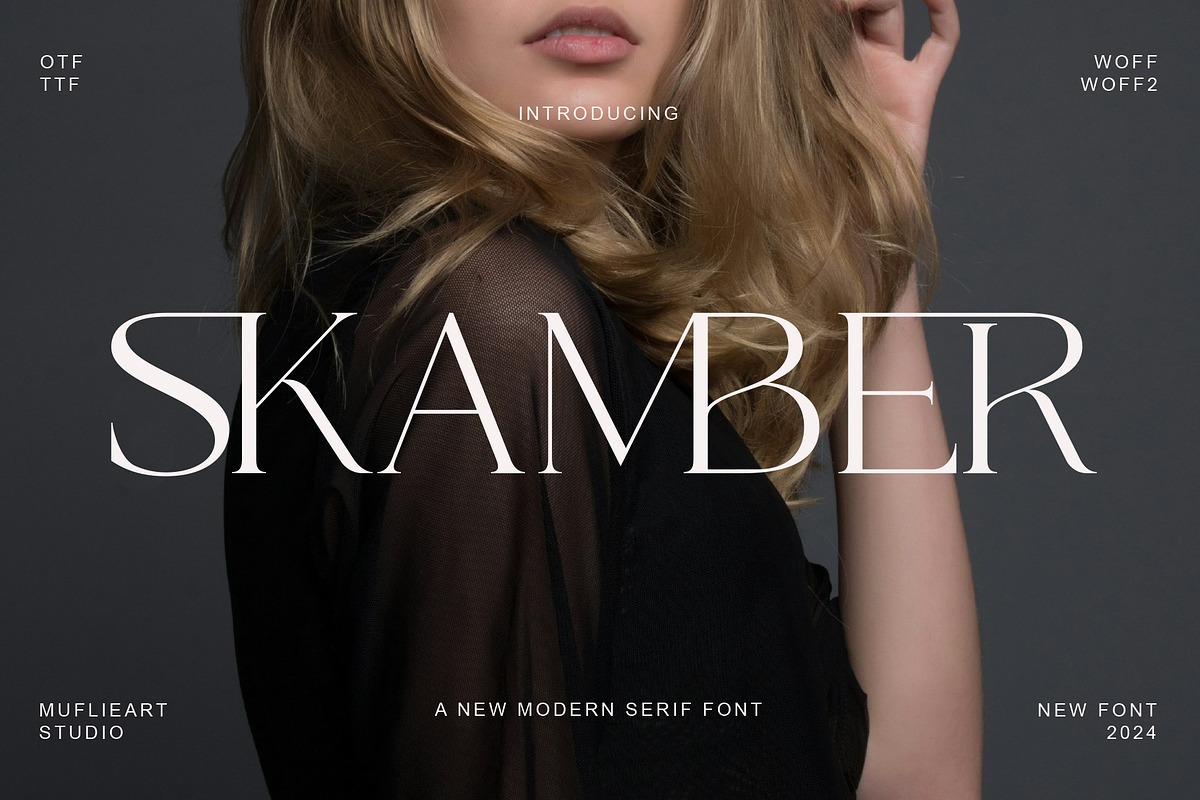
Skamber Font
Skamber Font – A modern and elegant serif look. With its modern and elegant appearance, Skamber brings a luxurious, minimalist and classy impression to the projects you need such as websites, modern logos, branding identities, social media quotes, wedding stationery, magazines and various other needs!
Skamber displays capital letters A to Z that are unique and classy. And it is equipped with numbering, punctuation, and multilingual support and is also equipped with unique binding letters so that Skamber becomes a beautiful font that can be adapted to various projects and jobs that you want.